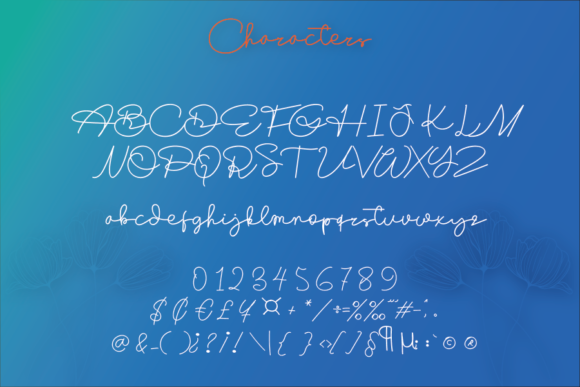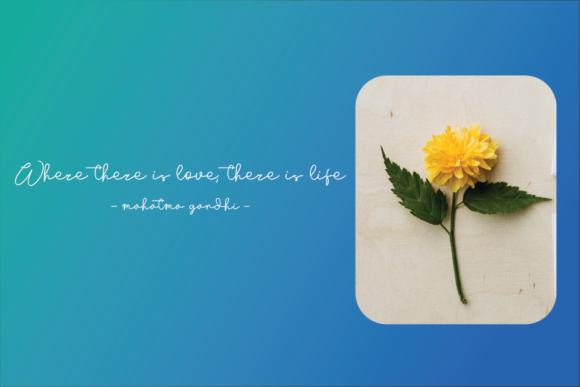
Happy Darling Font
About Happy Darling Font
Happy Darling is a beautiful and light handwritten font, featuring a unique feel and a stunning impact. It will add a luxury spark to any design project that you wish to create!